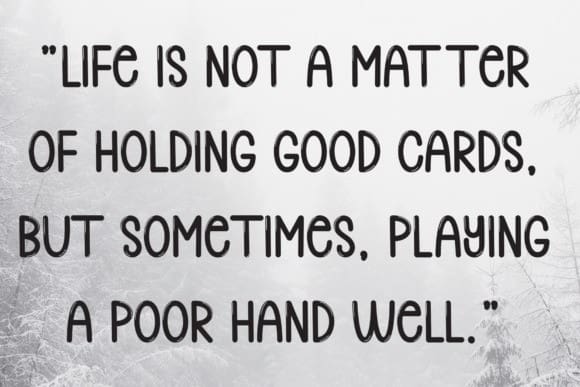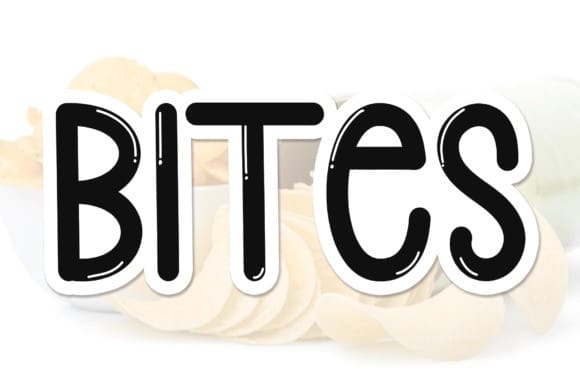
Bites Display Font
Bites Display Font is a neat, casual, and friendly handwritten font. No matter the topic, this font will be an incredible asset to your fonts’ library, as it has the potential to elevate any creation.